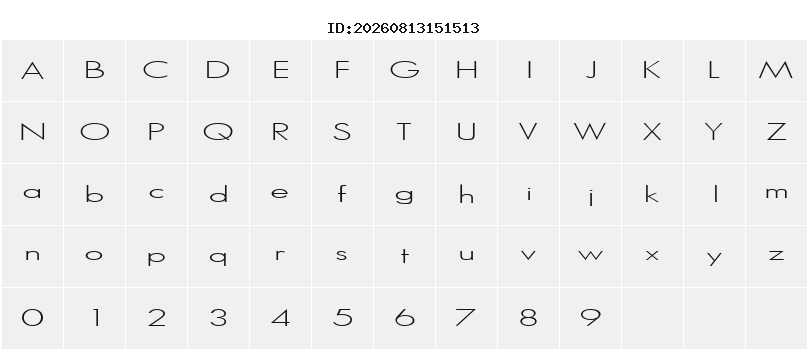
• Font Name: RSSansSerif
• Font ID: FontMonger:RSSansSerif Medium
• Full Font Name: RSSansSerif Medium
• PostScript Name: RSSansSerifMedium
About RSSansSerif.ttf
RSSansSerif.ttf is a modern, elegant sans-serif font designed for ultimate readability and visual harmony. Perfect for branding, headlines, web design, and print materials.